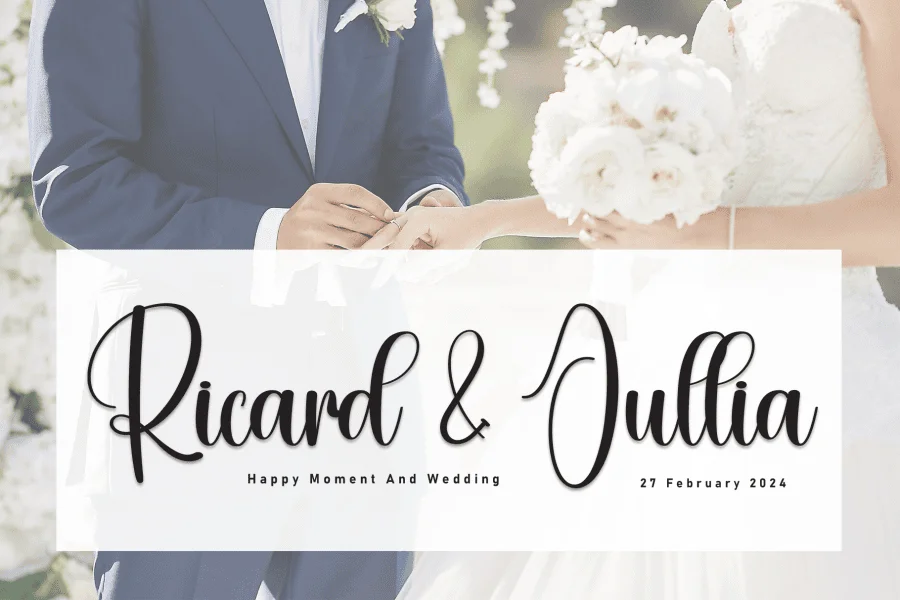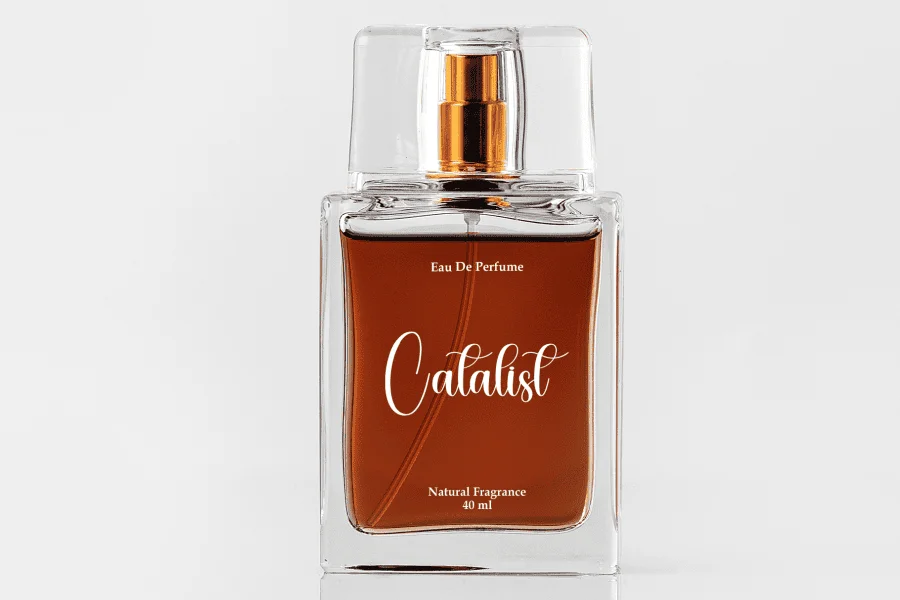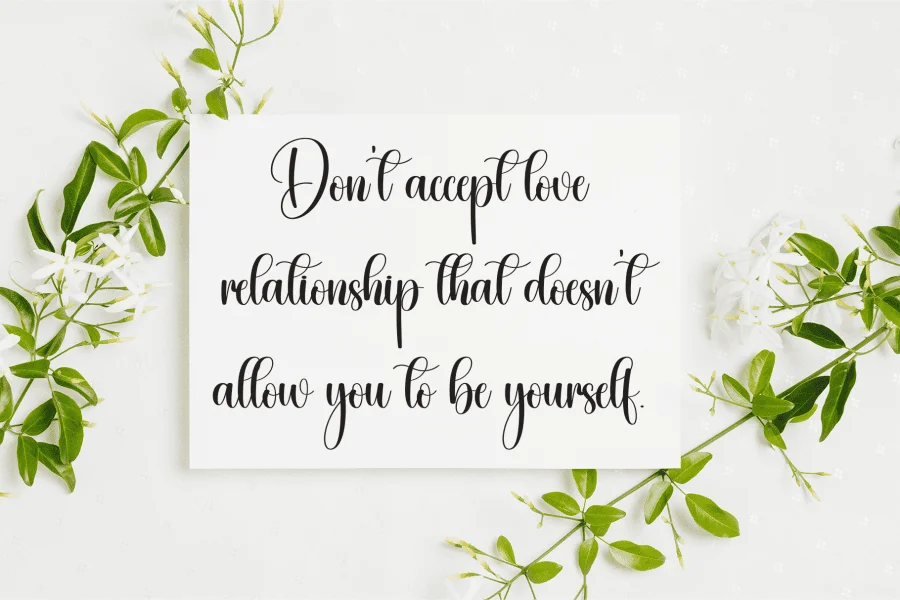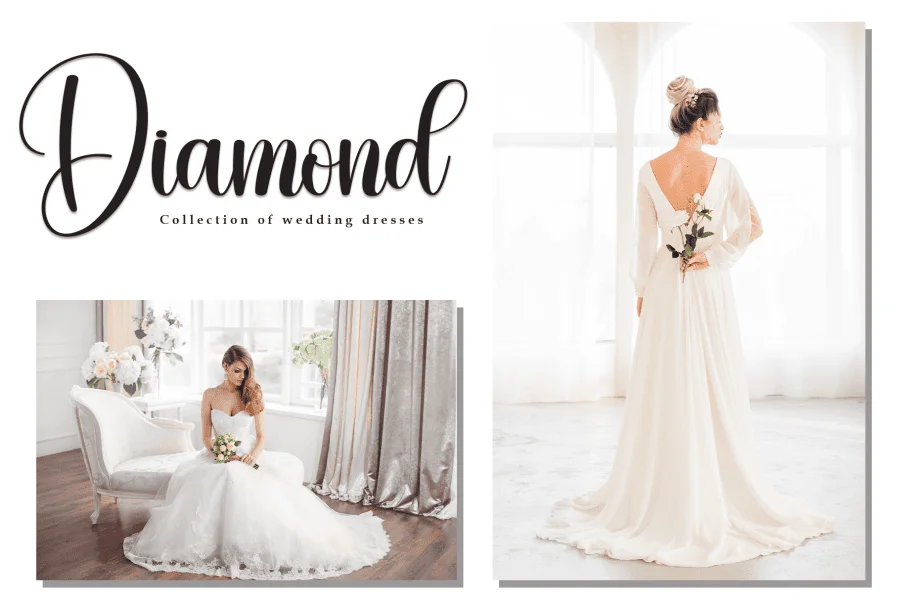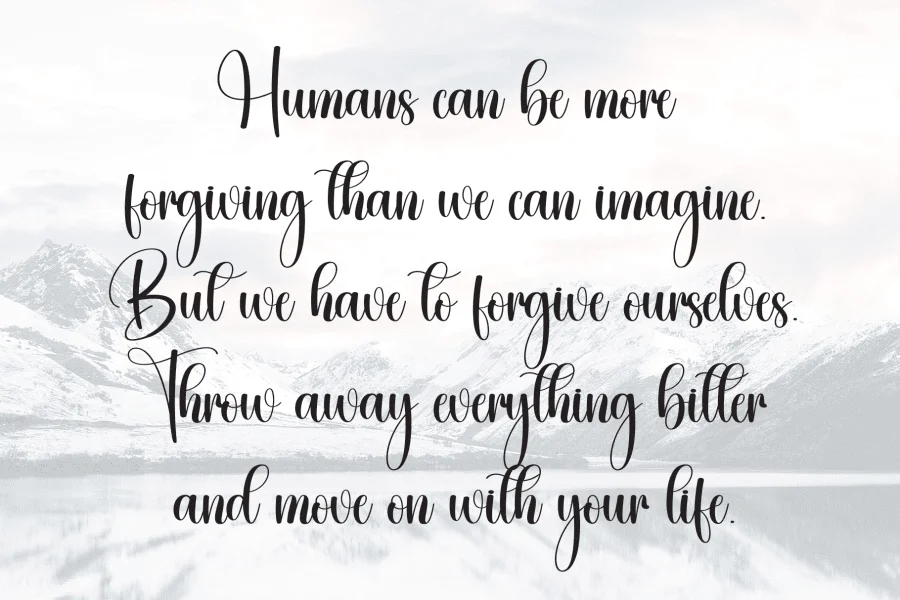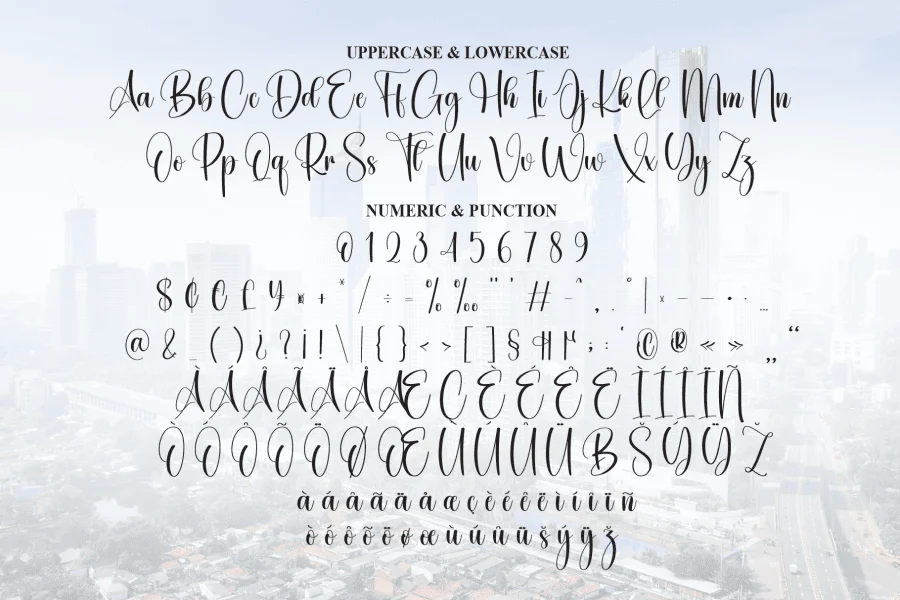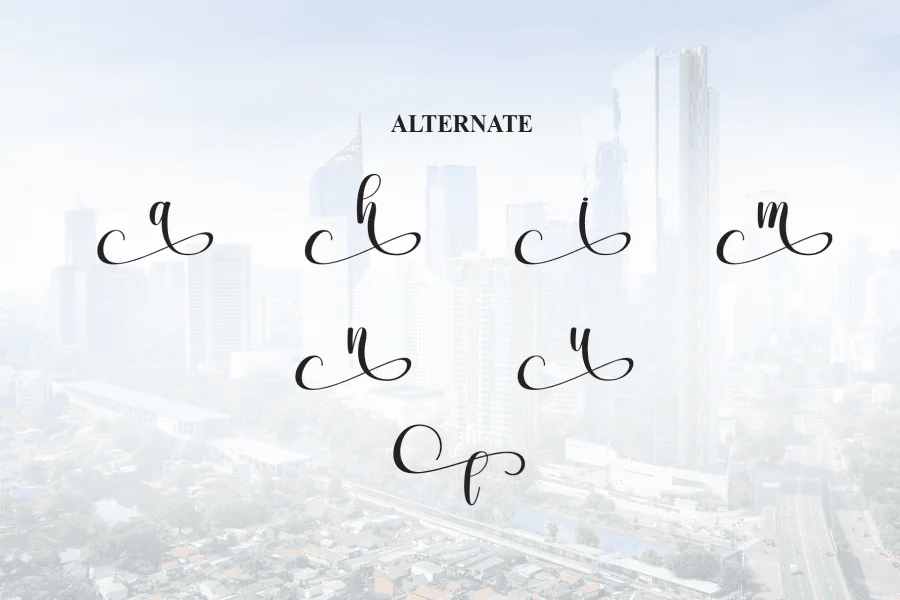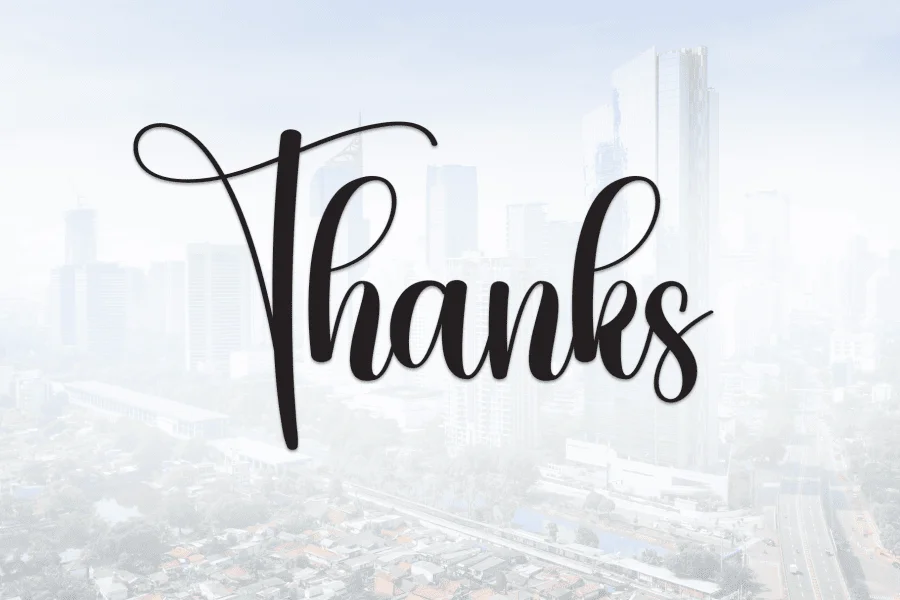
Downtown Font
the latest style letters are perfect for wall displays, wedding invitations, social media post logos,
advertisements, product packaging, product designs, labels, photography, watermarks, invitations, stationery,
and any project that requires taste handwriting.